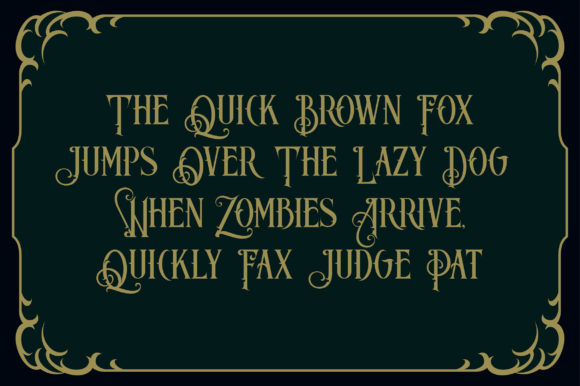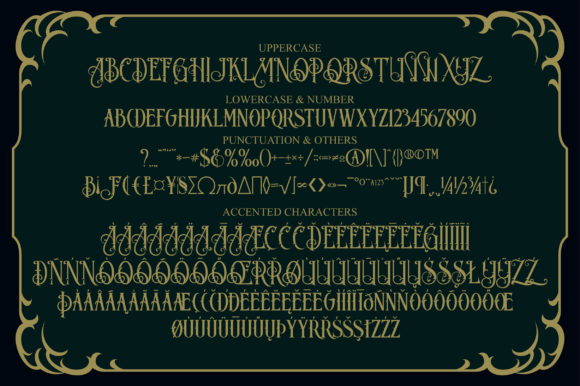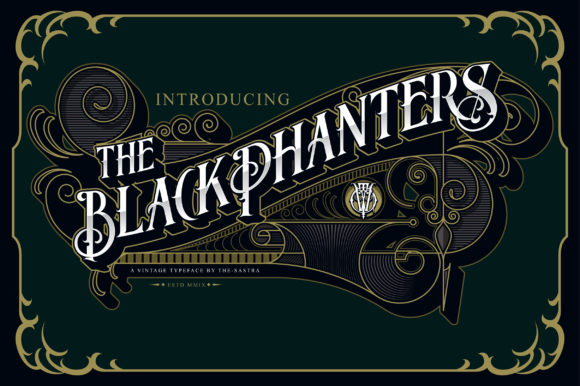
Unleash Your Creativity with Blackphanters Font: A Unique Display Font
In the world of typography, fonts play a crucial role in conveying messages, expressing emotions, and creating visual identities. For designers, crafters, and creative enthusiasts, finding the perfect font can be a game-changer. If you’re on the hunt for a font that makes a statement, look no further than Blackphanters Font. This unique display font is designed to turn heads and add a touch of sophistication to your projects.
The Blackphanters: A Font Like No Other
The Blackphanters is an extraordinary display font that boasts a striking look, making it perfect for a wide range of creative applications. Its distinctive style is sure to grab attention, whether you’re designing badges, branding materials, labels, apparel, headlines, signage, logos, or quotes. With Blackphanters, you can elevate your designs and give them a professional edge.
Key Features of Blackphanters Font
- Unique Display Style: The Blackphanters font features a one-of-a-kind design that’s specifically crafted to make a statement. Its bold and eye-catching appearance sets it apart from more traditional fonts.
- Versatility: This font is incredibly versatile and can be used across various platforms and mediums. Whether you’re working on digital projects or print materials, Blackphanters is an excellent choice.
- High-Quality Design: The Blackphanters font is meticulously designed to ensure clarity and legibility, even at larger sizes. This makes it perfect for headlines, titles, and other display purposes.
Blackphanters Font is a dream come true for designers and crafters who want to add a touch of personality to their work. Here are some of the many ways you can use this incredible font:
- Badges and Branding: Create stunning badges and branding materials that stand out from the crowd.
- Labels and Packaging: Add a professional touch to your labels and packaging with the Blackphanters font.
- Apparel and Merchandise: Design eye-catching apparel and merchandise that showcases your creativity.
- Headlines and Signage: Make a statement with bold headlines and signage that grab attention.
- Logos and Quotes: Create memorable logos and quotes that leave a lasting impression.
Tips for Using Blackphanters Font
To get the most out of Blackphanters Font, here are some expert tips:
- Experiment with Sizes: Don’t be afraid to experiment with different sizes to find the perfect fit for your project.
- Pair with Complementary Fonts: Pair Blackphanters with complementary fonts to create visual interest and hierarchy.
- Use in Combination with Images: Combine Blackphanters with images to create stunning visual compositions.
| Font Name | Blackphanters Font |
| Author | The-sastra |
Blackphanters Font is a game-changing display font that’s perfect for designers, crafters, and creative enthusiasts. Its unique style, versatility, and high-quality design make it an excellent choice for a wide range of creative applications. Whether you’re looking to create stunning badges, branding materials, labels, apparel, headlines, signage, logos, or quotes, Blackphanters is the perfect tool for the job. So why wait? Unleash your creativity with Blackphanters Font and take your designs to the next level!